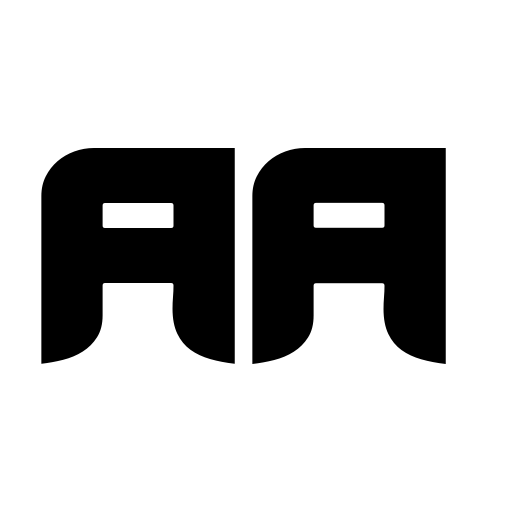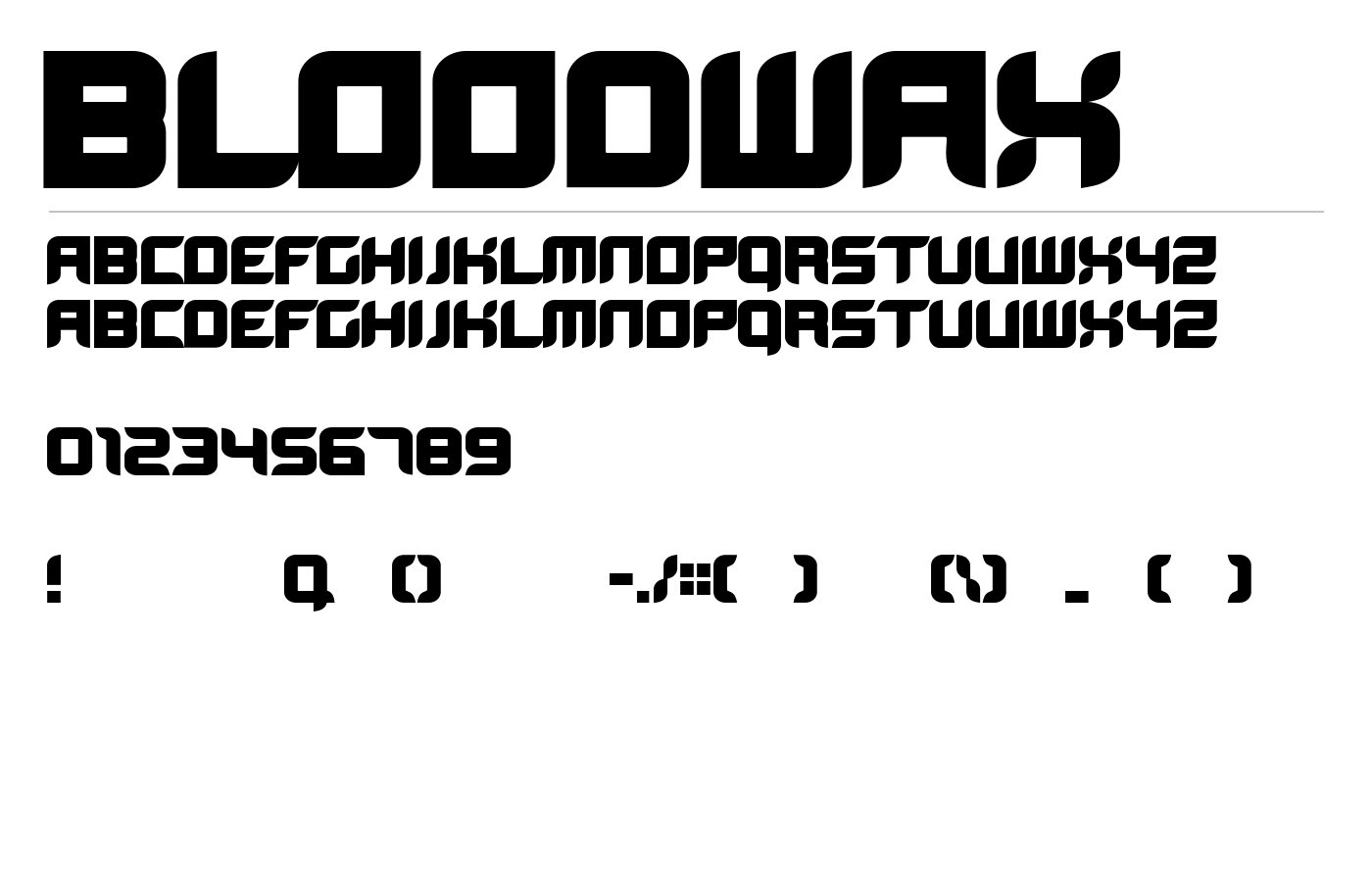
BloodWax is a bold, geometric sans serif font with a modern and futuristic feel, characterized by its heavy weight, condensed width, and distinctive sharp angles combined with rounded edges. Its unique letterforms, such as the stylized Q tail and segmented curves, give it a strong and edgy personality, making it ideal for striking headlines, logos, and branding that seek to convey innovation and boldness. This font works best in attention-grabbing contexts like posters, technology, and entertainment industries where a loud, contemporary look is desired.
BloodWax Font
About BloodWax Font